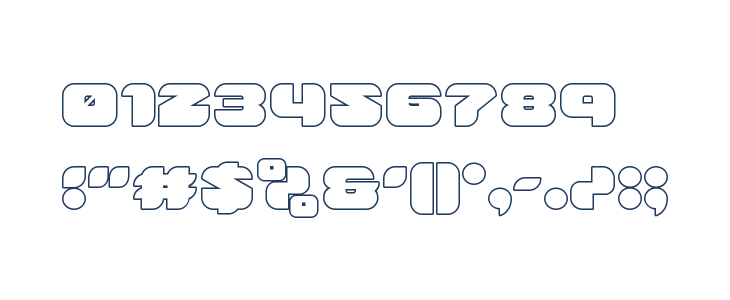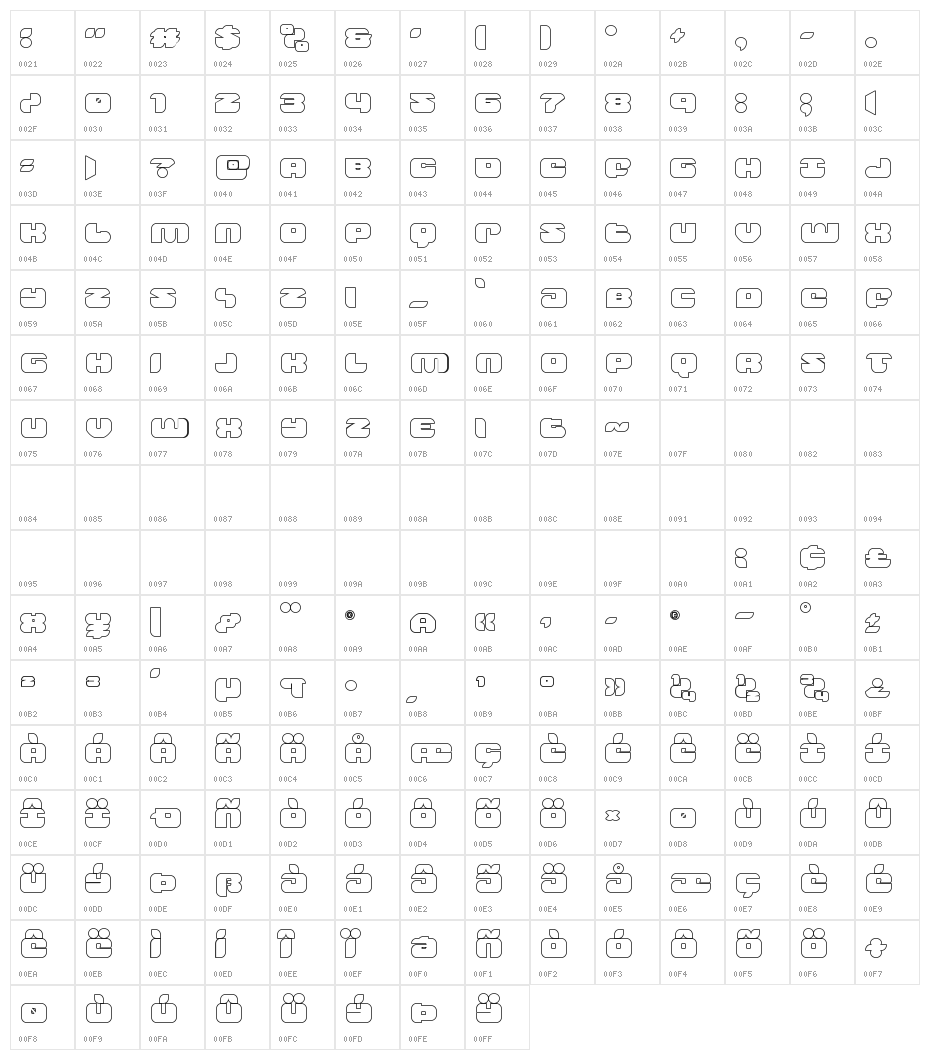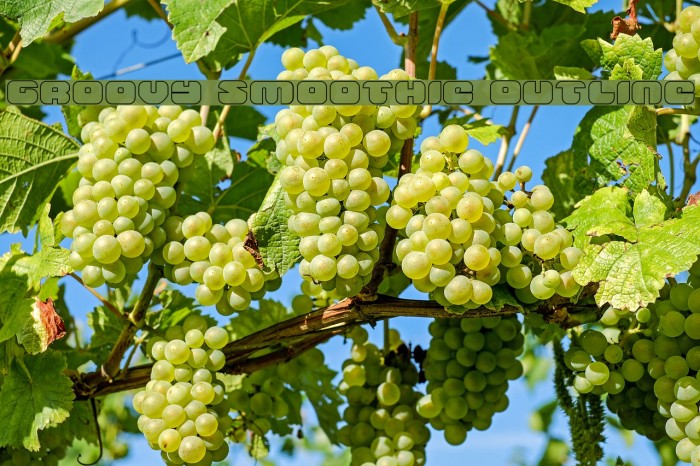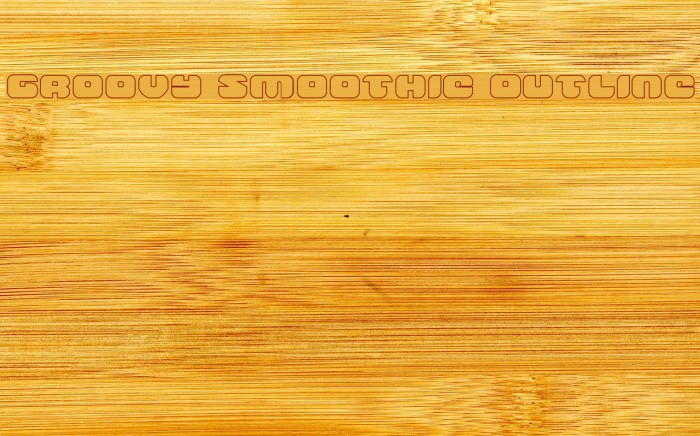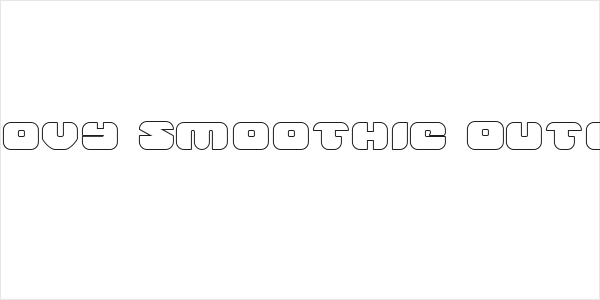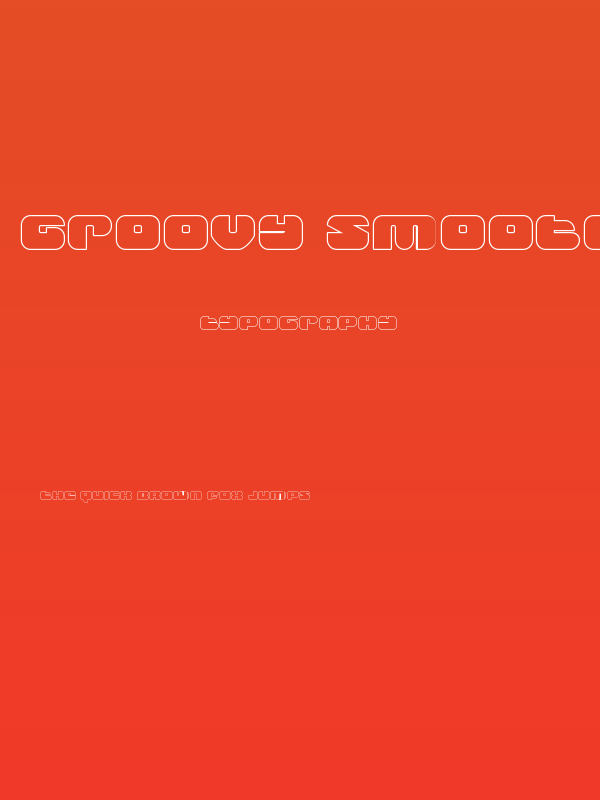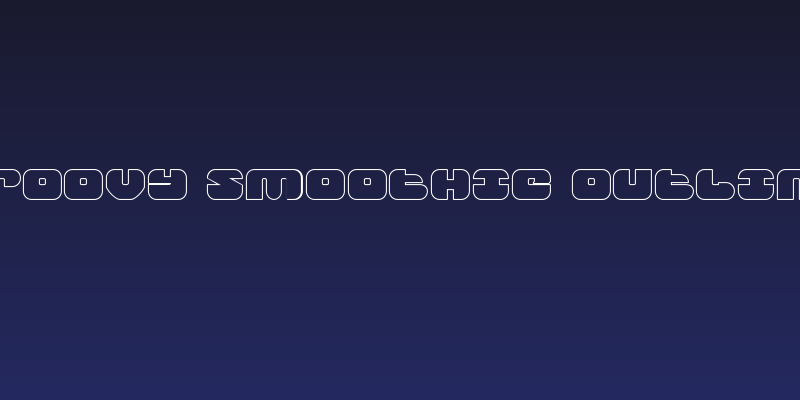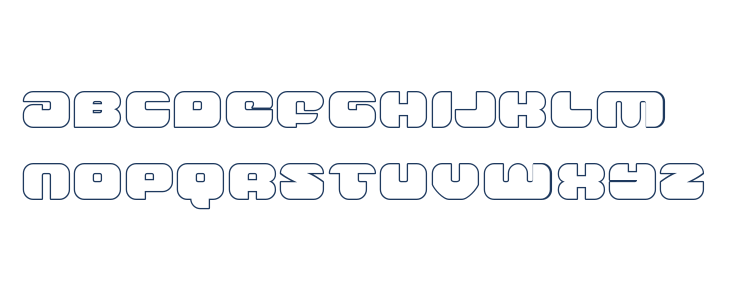
Groovy Smoothie Outline Font
Groovy Smoothie Outline Description
This font features a playful and bold outline style, characterized by its rounded, bubble-like shapes. The letters are evenly spaced and maintain a consistent thickness throughout, giving it a cohesive and uniform appearance. The uppercase and lowercase letters share similar design elements, enhancing readability while maintaining a whimsical aesthetic. The numbers and special characters are designed to match the overall style, making it versatile for various uses. Its unique outline design makes it stand out, perfect for projects that require a fun and engaging visual element.